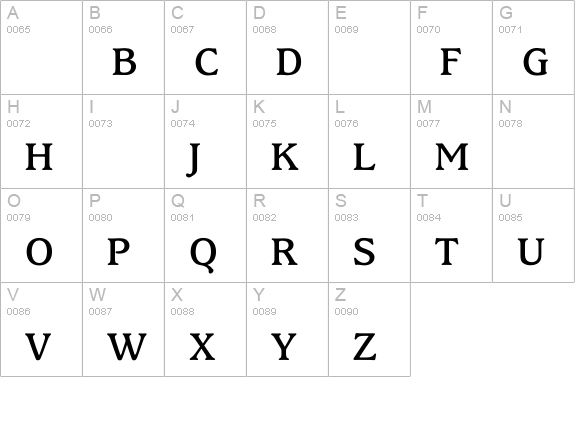
KingsrowMedium Font Details
Introducing KingsrowMedium, a versatile and elegant font that effortlessly combines timeless sophistication with a modern twist. This font is a true masterpiece, meticulously crafted to bring a touch of class to any design project. With its medium weight, KingsrowMedium strikes the perfect balance between boldness and subtlety, making it suitable for a wide range of applications. Whether you're designing a logo, creating eye-catching headlines, or simply adding a touch of elegance to your printed materials, this font is sure to impress. KingsrowMedium showcases clean lines and smooth curves, exuding an air of refinement and precision. Its legibility is second to none, ensuring that your message is conveyed with clarity and professionalism. From small text sizes to larger headlines, this font maintains its grace and charm, making it a true asset for any design endeavor. But what sets KingsrowMedium apart is not just its aesthetic appeal; it's also its accessibility. This font is freely available to download at FontsMarket.com, allowing designers, creatives, and enthusiasts alike to unleash their creative potential without any constraints. Embrace the freedom to explore and experiment with this stunning font, as it effortlessly elevates your designs to new heights. So why wait? Experience the elegance and versatility of KingsrowMedium for yourself. Download it today from FontsMarket.com and let your imagination run wild. Whether you're designing for print or digital, this font will undoubtedly become your go-to choice for adding a touch of sophistication to your projects. Discover the beauty of KingsrowMedium and unlock a world of endless design possibilities.